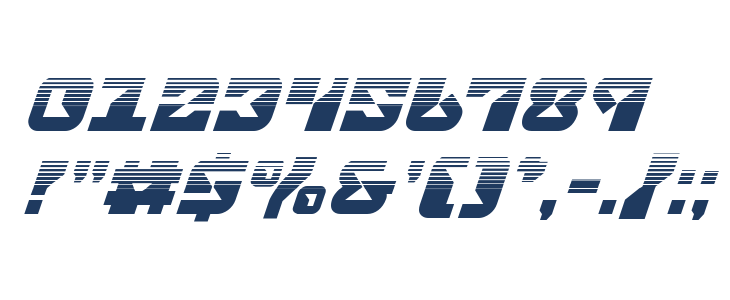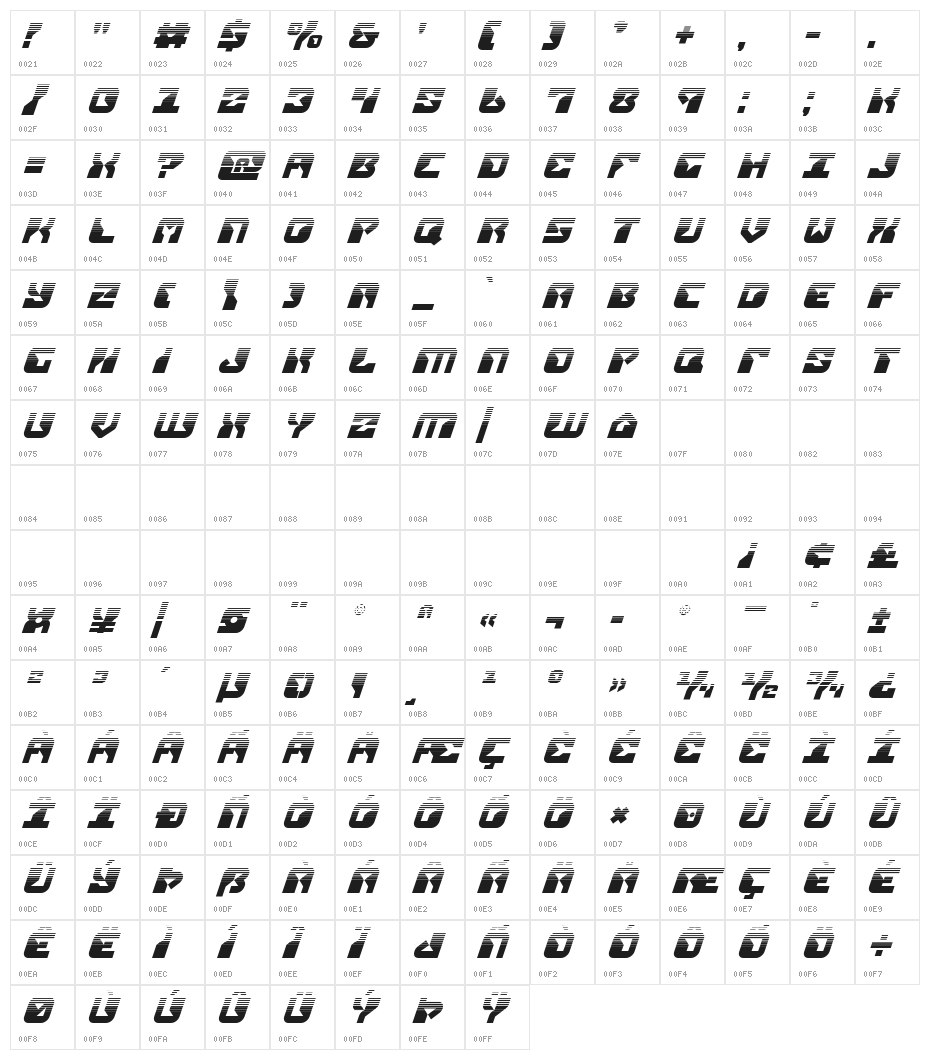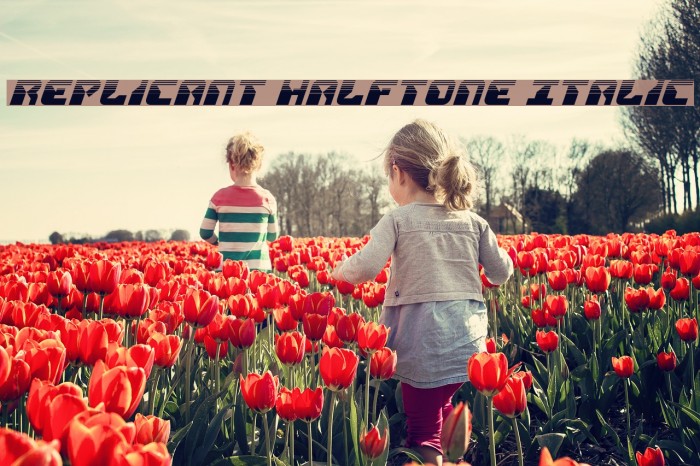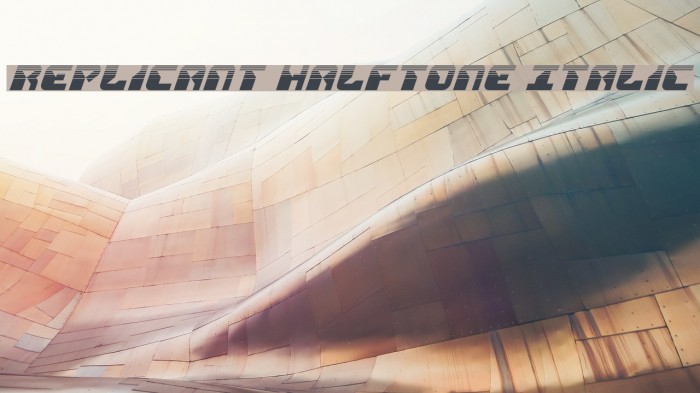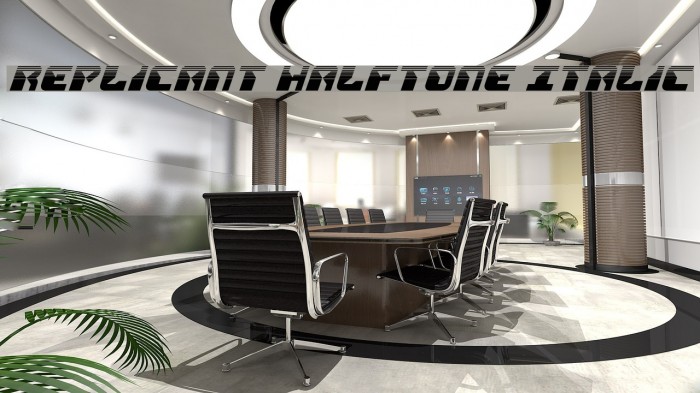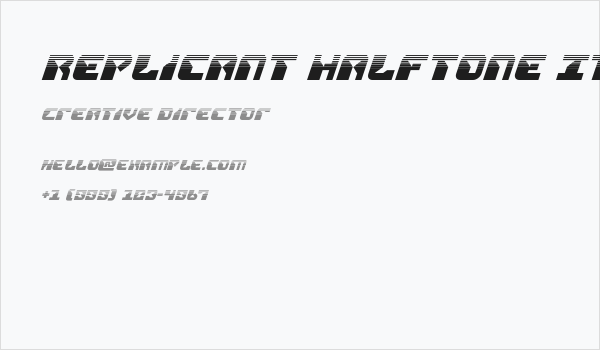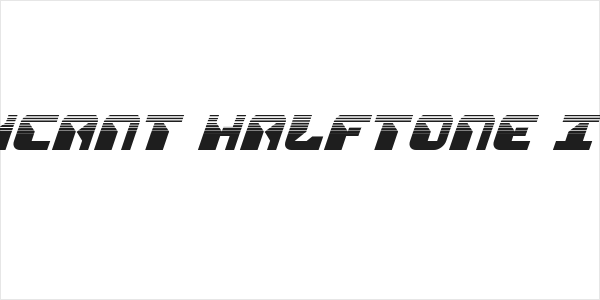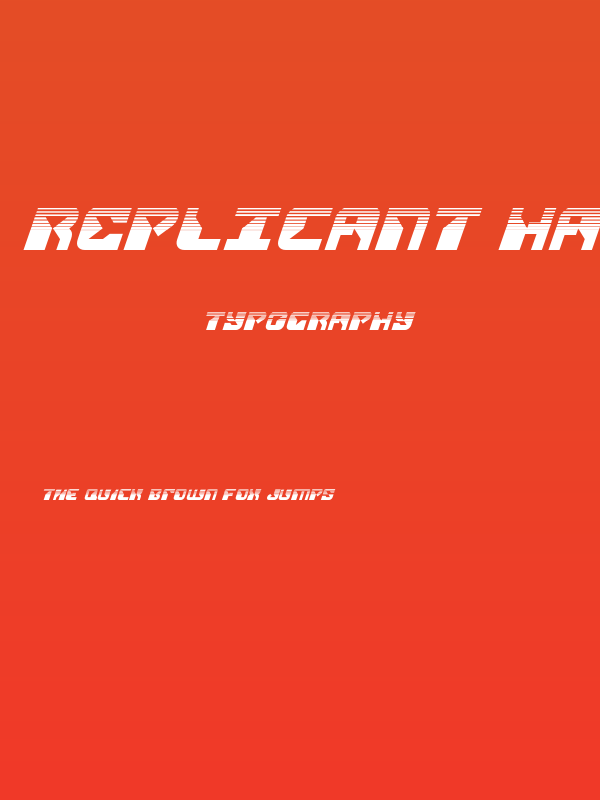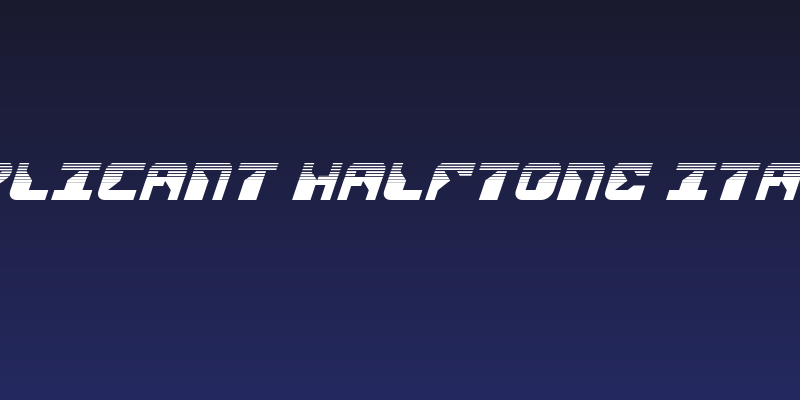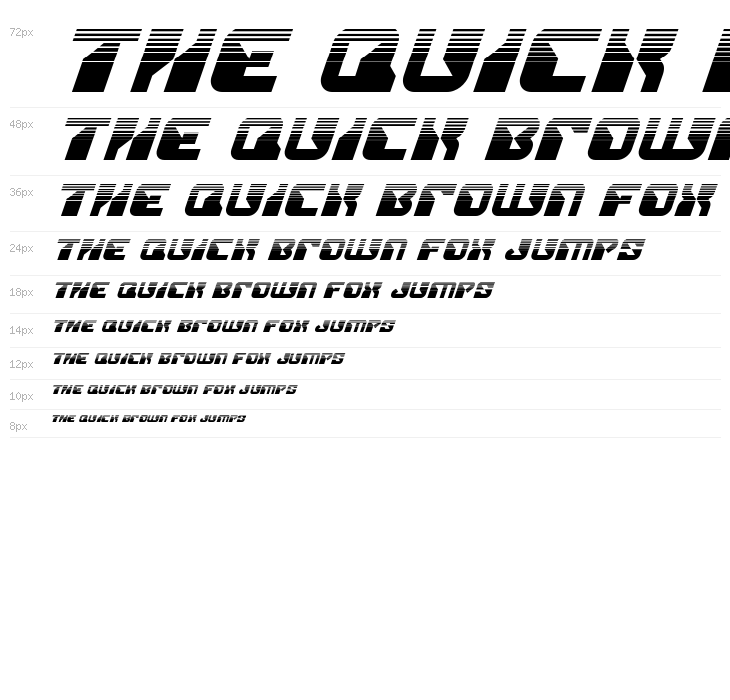
Replicant Halftone Italic Font
Replicant Halftone Italic Description
This font features a bold, futuristic design with a halftone effect that gives it a unique, dynamic appearance. The italicized letters are sharply angled, enhancing the sense of motion and speed. The uppercase and lowercase characters maintain a consistent style, with each letter incorporating horizontal lines that create a sense of depth and texture. The numerals and special characters are designed to match the bold and modern aesthetic, making them stand out while remaining cohesive with the overall design. This font is ideal for projects that require a strong, eye-catching visual impact.
| Proposed Projects | Ideal for sci-fi themed posters, video game titles, technology branding, and futuristic event flyers. |